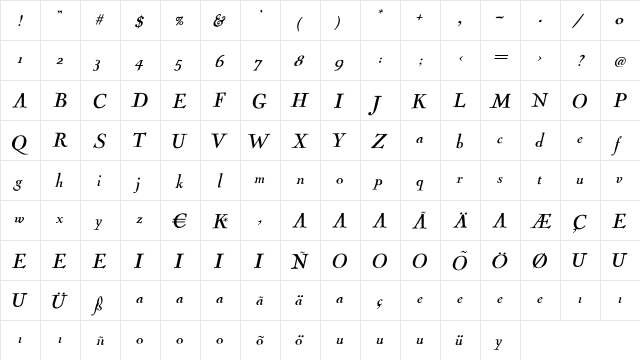
Cock Italic
Design Context for Cock Typeface
Cock offers clean, dependable letterforms without strong stylistic allegiance, making it a practical choice for designers who need flexibility. The slanted form adds forward momentum and visual energy.